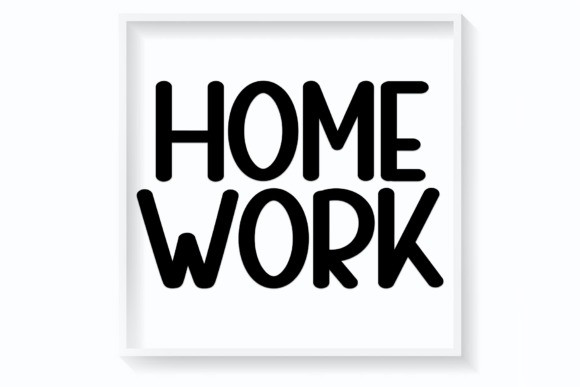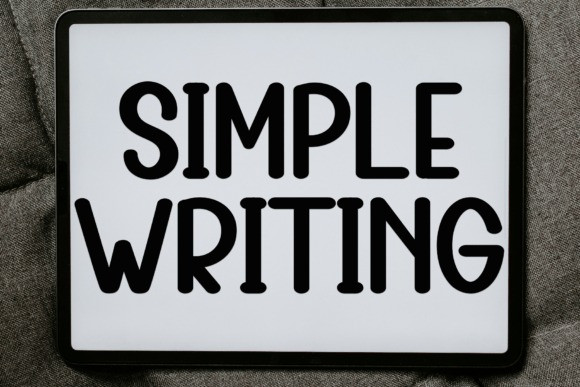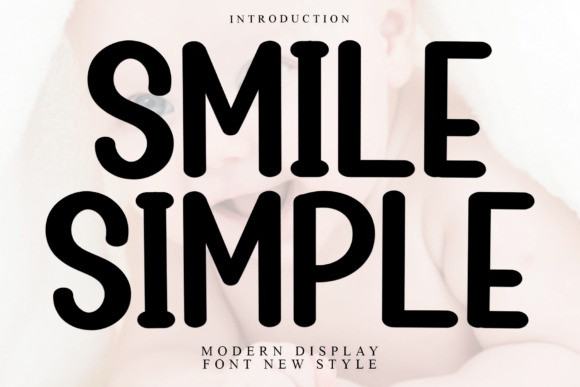
Smile Simple Font
Smile Simple Font is a stylish and incredibly elegant script font. It looks stunning on wedding invitations, thank you cards, quotes, greeting cards, logos, business cards and every other design which needs a handwritten touch.